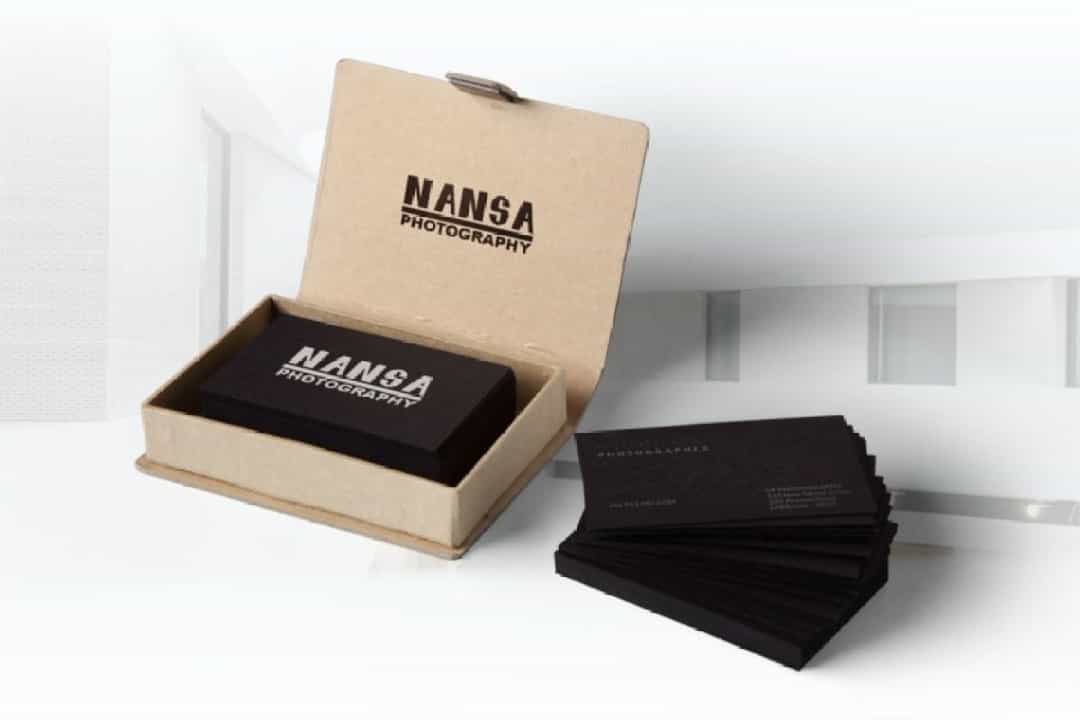
Bagela is one of those sans serif fonts that will surely gain peoples’ affection very quickly. This font is perfect for any design, be it in the middle of other elements or as a bold title because it has a rather casual, yet easy to read feel.